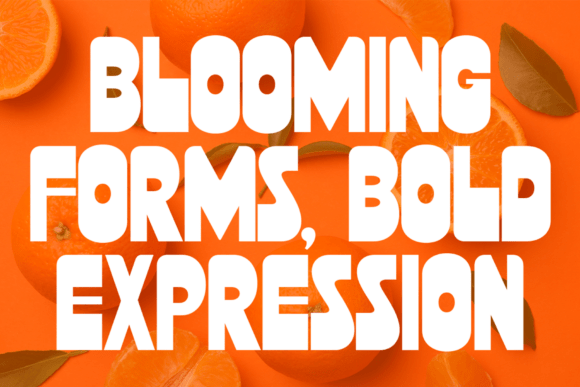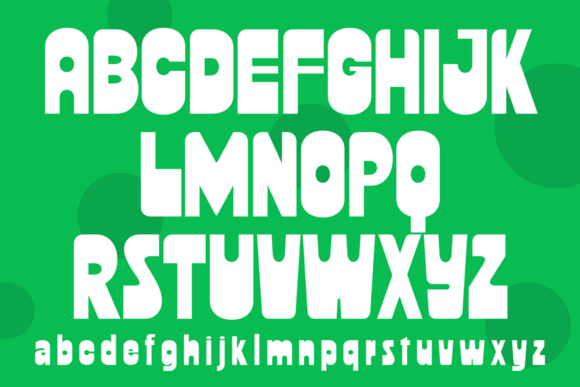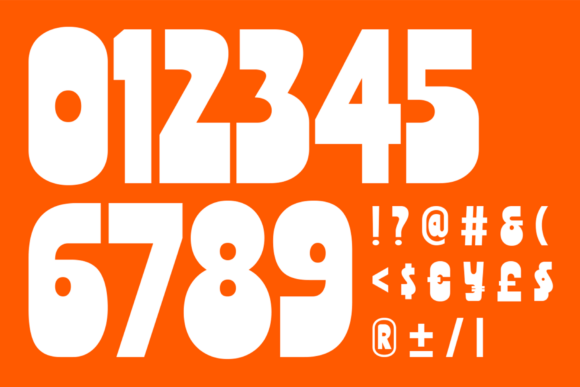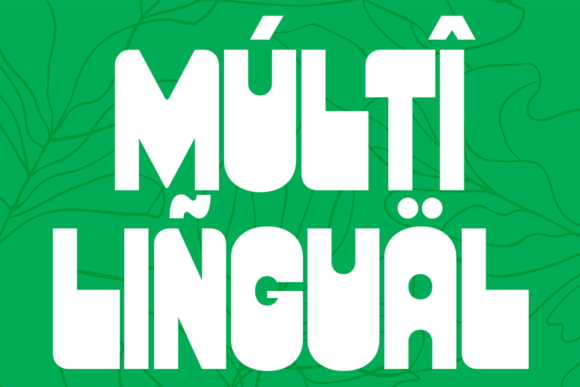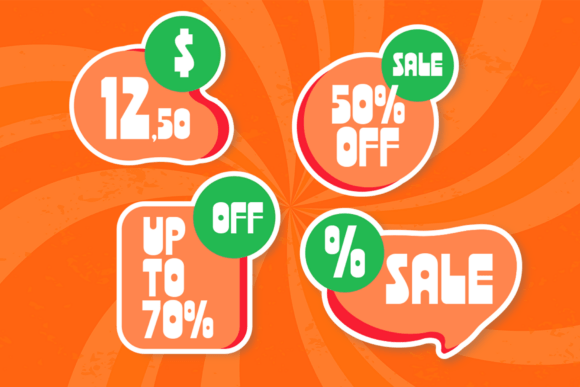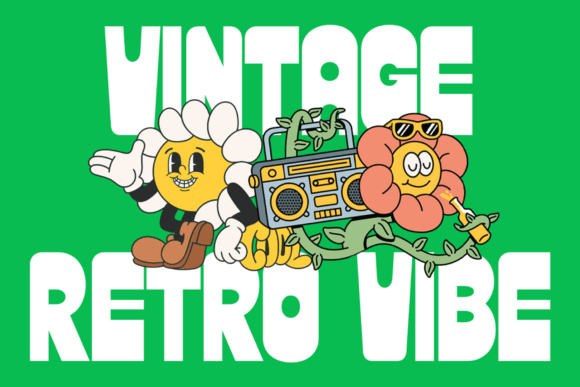
Introducing HALIBUS: The Ultimate Display Font for Fun and Modern Designs
Are you tired of using the same old fonts for your designs? Look no further than HALIBUS, a bold and playful display font that’s sure to take your creative projects to the next level. With its soft, rounded shapes and strong, friendly vibe, HALIBUS is the perfect choice for designers who want to add a touch of fun and modernity to their work.
The Unique Characteristics of HALIBUS
HALIBUS is a one-of-a-kind font that’s designed to make a statement. Its chunky, fun letters are perfect for creating lively and engaging text that won’t lose readability. The font’s unique form gives it a cheerful and expressive personality that’s sure to stand out in a crowd. Whether you’re creating a poster, a brand identity, or a social media graphic, HALIBUS is the perfect choice for designers who want to make a bold impression.
What Makes HALIBUS So Versatile?
One of the things that sets HALIBUS apart from other fonts is its incredible versatility. With uppercase, lowercase, numbers, symbols, and multilingual support, this font is ready for all kinds of creative projects. Whether you’re working on a logo, a packaging design, or a promotional graphic, HALIBUS has everything you need to create a stunning and effective design.
HALIBUS is a font that’s perfect for a wide range of design projects, including:
- Branding and identity design
- Packaging design
- Product labels
- Social media graphics and content
It’s especially well-suited for food brands, snacks, drinks, kids-themed designs, and retro-style visuals. Imagine using HALIBUS to create a bold and eye-catching candy packaging design, a fun and playful beverage can label, or a vibrant and energetic social media graphic.
Key Features of HALIBUS
Here are just some of the key features that make HALIBUS such a great font:
- Uppercase & Lowercase: HALIBUS includes both uppercase and lowercase letters, giving you maximum flexibility when it comes to creating your designs.
- Number, Symbol, & Punctuation: The font includes a wide range of numbers, symbols, and punctuation marks, making it perfect for creating complex designs.
- Multilingual: HALIBUS supports multiple languages, making it a great choice for designers who work with international clients or want to create designs that can be used across different cultures.
Why Choose HALIBUS?
So why choose HALIBUS over other fonts? Here are just a few reasons:
- Unique and eye-catching: HALIBUS is a one-of-a-kind font that’s sure to grab attention and make your designs stand out.
- Fun and playful: The font’s chunky, fun letters are perfect for creating lively and engaging text that’s sure to put a smile on people’s faces.
- Versatile: HALIBUS is a font that can be used for a wide range of design projects, from posters and flyers to branding and packaging design.
In conclusion, HALIBUS is a bold and playful display font that’s perfect for designers who want to add a touch of fun and modernity to their work. With its unique characteristics, versatility, and key features, HALIBUS is a font that’s sure to take your creative projects to the next level. Whether you’re creating a poster, a brand identity, or a social media graphic, HALIBUS is the perfect choice for designers who want to make a bold impression.